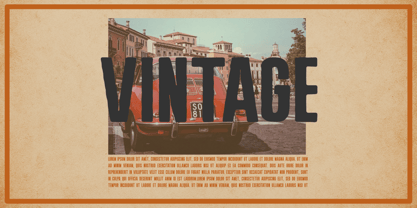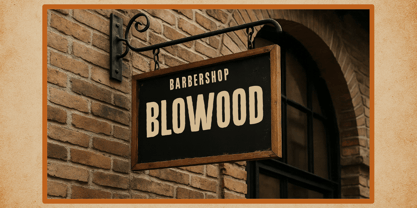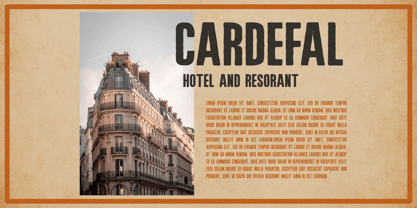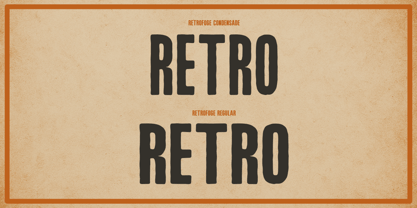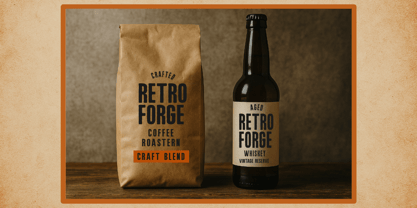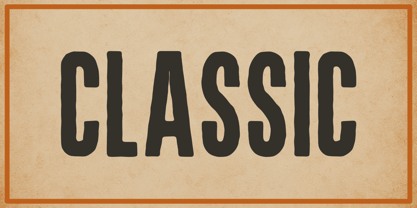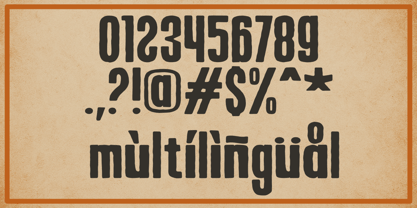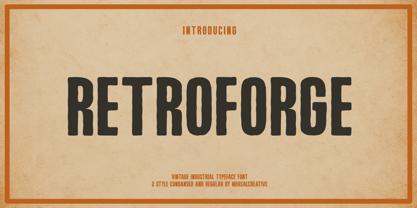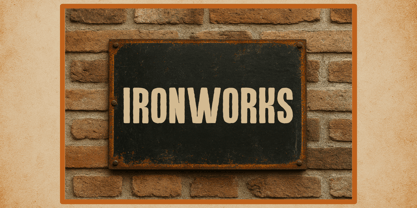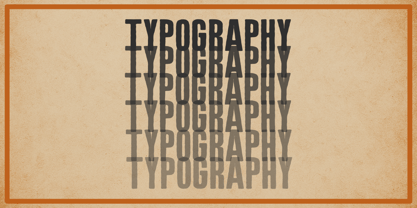
Retroforge
by Muksal Creatives
Retroforge – Vintage Industrial Typeface
Retroforge is a textured sans serif typeface that blends classic vintage aesthetics with a modern industrial edge. With bold, sturdy letterforms and a handcrafted textured finish, Retroforge adds a timeless, authentic, and powerful character to any design.
Perfect for branding, packaging, product labels, signage, retro posters, apparel, cafés, and barbershop designs, this typeface delivers a strong vintage press look that feels both nostalgic and contemporary.